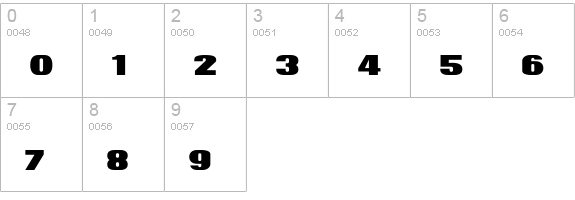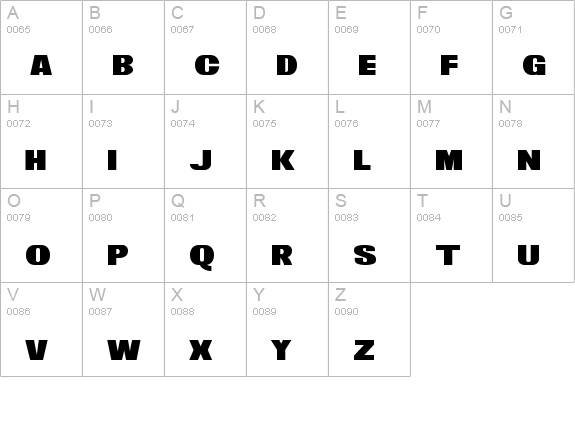
News of the World Wide is a distinctive, extended-width variant in the News typeface family \xE2\x80\x94 well suited to design and typography projects.
Introducing the sensational News of the World Wide font, a captivating and versatile typeface that embodies the essence of global news and information. With its bold and distinctive design, this font stands out among the crowd, making it perfect for headlines, titles, and eye-catching graphics. News of the World Wide font is a true gem in the world of typography, as it effortlessly combines modernity with a timeless elegance. Every letter is meticulously crafted, ensuring a smooth and harmonious flow that captures attention and conveys messages with utmost clarity and professionalism. But what makes News of the World Wide font even more remarkable is that it is available for free! Yes, you read that right. This exceptional typeface can be downloaded for free at FontsMarket.com, making it easily accessible to anyone who seeks to make a statement with their designs, without breaking the bank. Whether you're a graphic designer, a journalist, a blogger, or simply someone who appreciates the power of typography, News of the World Wide font is a must-have in your collection. Its versatility allows it to seamlessly adapt to various design projects, from print to digital, and its legibility ensures that your message is conveyed with the utmost impact. Don't miss out on the opportunity to enhance your creations with the unparalleled beauty and sophistication of News of the World Wide font. Download it for free today at FontsMarket.com and let your imagination run wild as you explore the endless possibilities this font has to offer.